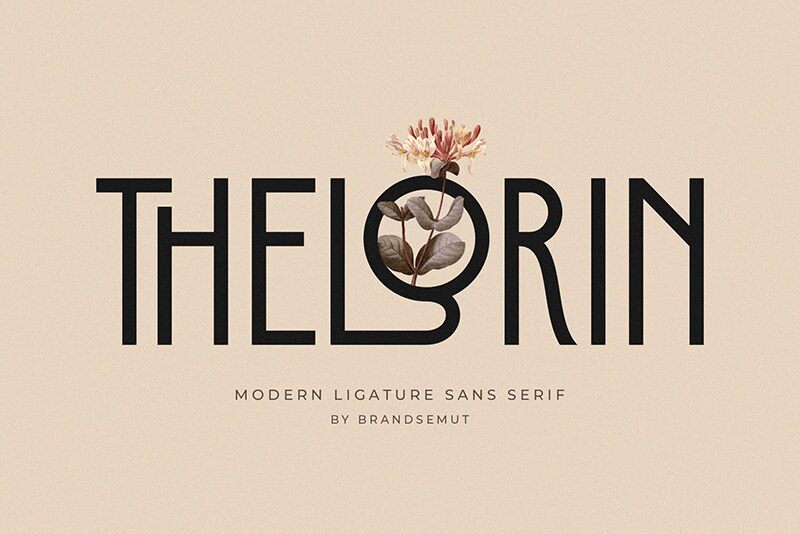
Thelorin font by BrandSemut is a bold, sans-serif typeface with a geometric design and high contrast, inspired by the retro style. Sharp edges create a modern and clean look that embodies minimalism while maintaining an uppercase presentation in all its light weight yet condensed width.
Thelorin is perfect for titles, branding projects, homeware designs, product packaging or simply as a stylish text overlay on any background image. It's ideal for logos, headlines, T-shirts, letterheads nameplates and more. We've also added several alternative characters to make it really versatile.